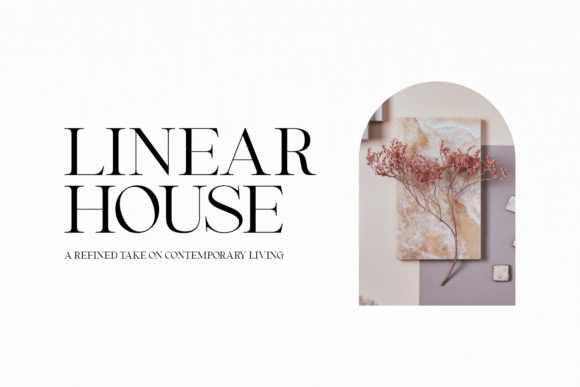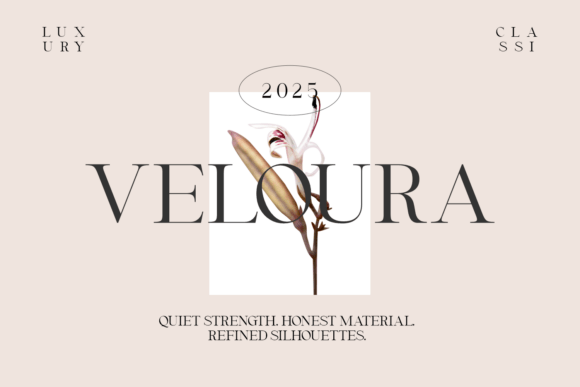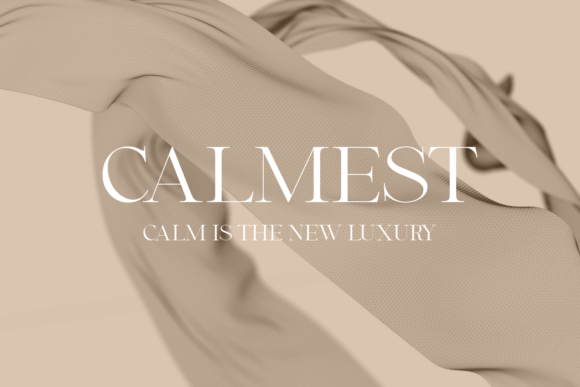
Introduction to Quiet Power Font
Quiet Power is an elegant serif font that commands attention through subtlety and grace.
With refined curves, high contrast strokes, and a clean, modern aesthetic, this typeface embodies understated sophistication Perfect for luxury branding, fashion editorials, wedding invitations, and minimalist design, Quiet Power speaks volumes without shoutingβ€”ideal for those who value timeless style with a contemporary voice.
Key Features of Quiet Power Font
Why Choose Quiet Power Font?
Quiet Power Font offers exceptional quality and versatility, making it a valuable addition to your design toolkit. Whether you’re creating for personal projects or commercial use, Quiet Power Font delivers professional results.